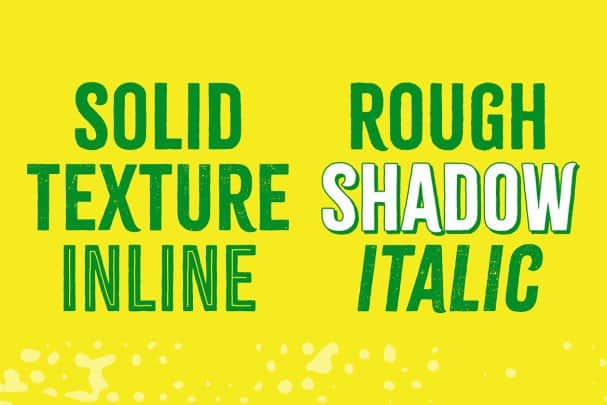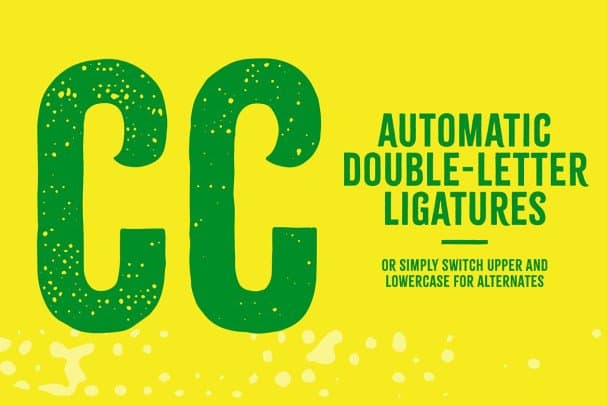
Citrus Gothic Font
Citrus Gothic Font is coming into the category of rough fonts. It is available here for free and it is highly rated inside the Google fonts. This terrific font has made significantly in a top-notch type preserving an Opentype define the form. That is a glamour that is much like the hammer font.
So, because of this feature, you could use this font for a large market area. This font is completed in replica and pastes competencies. This typeface is likewise of mark my words font quite rated in the google fonts. Citrus Gothic Font Free The completes letters collectively with this economic business enterprise preface sans-serif typeface characteristic pinnacle-notch glad.